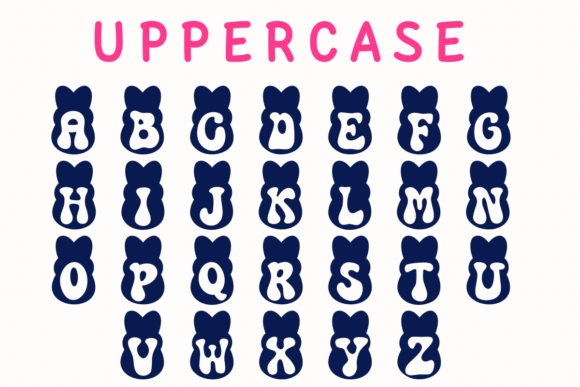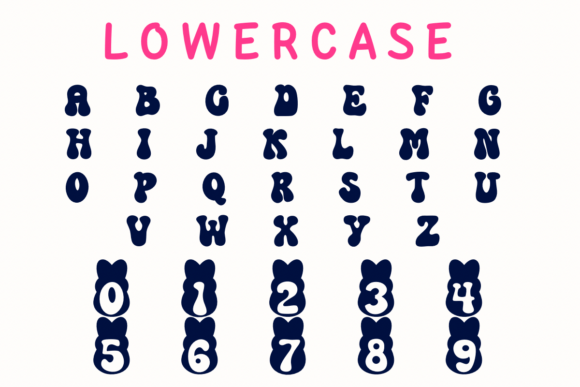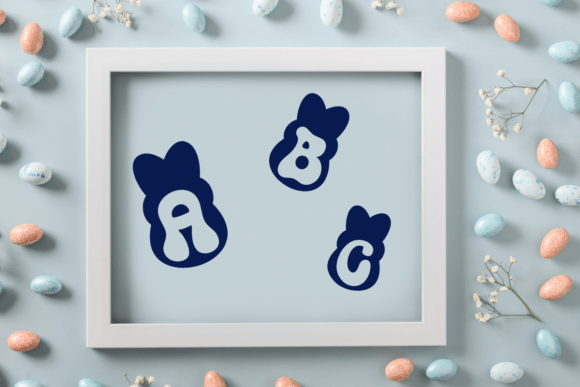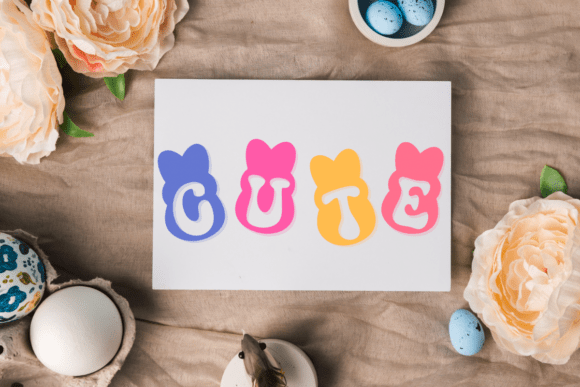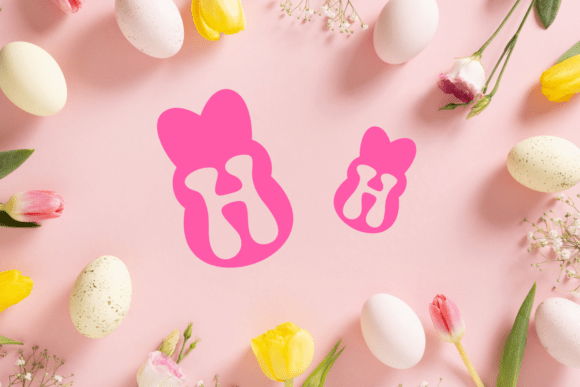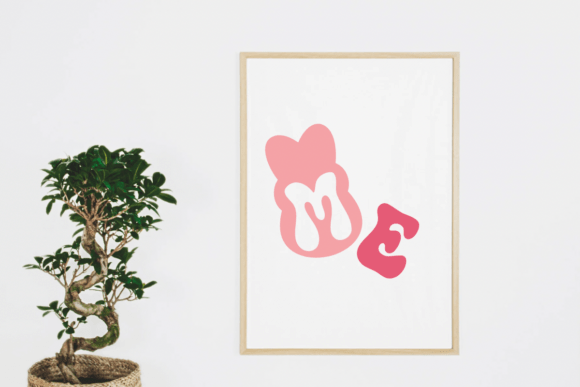
Celebrating Spring with a Dash of Whimsy
As the last wisps of winter fade away, I find myself in the midst of a creative frenzy, surrounded by colorful markers, scraps of paper, and an insatiable urge to craft something delightful. It’s the perfect time to break out the Cute Easter Bunny Font, a charming decorative font that’s sure to add a touch of whimsy to any project.
With its playful, hand-drawn feel, the Cute Easter Bunny Font is perfect for taking notes, writing a diary, or creating heartfelt greeting cards. But its versatility extends far beyond these traditional uses – designers can also employ it to create eye-catching banners, social media posts, and even custom merchandise like mugs and shirts. Whether you’re a seasoned pro or a creative newcomer, the Cute Easter Bunny Font is an invaluable addition to your design toolkit.
Cute Easter Bunny Font Key Features
- Font Family: Cute Easter Bunny Font
- Unique Characteristics: Includes Easter-themed characters, decorations, and symbols; supports multilingual support for English, Spanish, French, and more
Cute Easter Bunny Font Review
I recently had the chance to work with the Cute Easter Bunny Font, and I must say it’s a delightful addition to any Easter-themed project. Here are some of its strengths and weaknesses.
- Unique and playful design that captures the essence of Easter.
- Easy to read, even at smaller font sizes.
- Perfect for creating a whimsical and festive atmosphere.
- Limited character set, making it less versatile than other fonts.
- Not ideal for formal or professional projects.
- May not be compatible with all operating systems or devices.
Overall, the Cute Easter Bunny Font is a charming and fun font that’s perfect for Easter-themed projects or children’s content. While it has some limitations, its unique design and playful feel make it a great choice for the right project. Just be sure to use it in a context where its whimsy won’t clash with more serious content.
The Cute Easter Bunny Font is perfect for:
- Easter-themed designs, such as invitations, cards, and banners.
- Children’s party decorations and accessories.
- Spring-themed designs, such as garden signs and floral arrangements.
For the most out of the Cute Easter Bunny Font, use it in conjunction with pastel colors and playful graphics to create a whimsical and festive atmosphere.
Alternatives to Cute Easter Bunny Font for Designers
Pacifico Font is a beautiful, elegant script font that can be used for various designs, including Easter-themed projects. It’s perfect for creating a sophisticated and whimsical atmosphere. When to use: For designs that require a touch of elegance and sophistication, such as wedding invitations, Easter cards, or event branding.
Comparison to Cute Easter Bunny Font: While Pacifico Font is more elegant and refined, Cute Easter Bunny Font is more playful and childish. Pacifico Font is ideal for designs that require a sense of sophistication, whereas Cute Easter Bunny Font is better suited for designs that need a playful touch.
Great Vibes Font is a modern, handwritten font that can add a touch of playfulness and whimsy to Easter designs. It’s perfect for creating a fun and lively atmosphere. When to use: For designs that require a sense of fun and playfulness, such as Easter egg decorations, party invitations, or social media graphics.
Comparison to Cute Easter Bunny Font: While Great Vibes Font is more modern and playful, Cute Easter Bunny Font is more traditional and childish. Great Vibes Font is ideal for designs that require a sense of modernity and playfulness, whereas Cute Easter Bunny Font is better suited for designs that need a traditional touch.